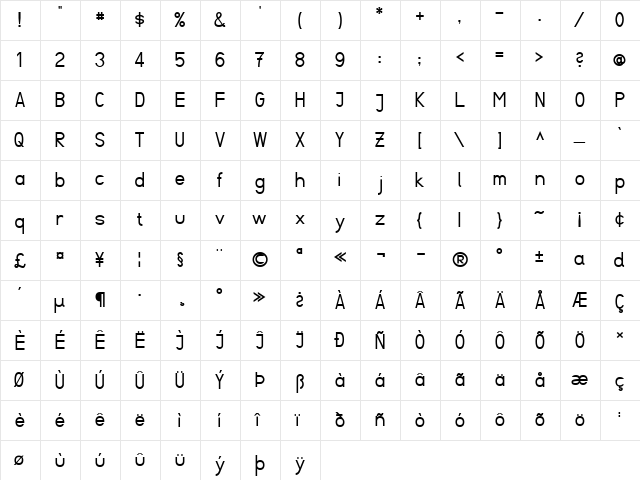
Fibel Sued Regular
| Foundry | Peter Wiegel |
| Designer | Peter Wiegel |
Design Context for Fibel Sued Typeface
Fibel Sued offers clean, dependable letterforms without strong stylistic allegiance, making it a practical choice for designers who need flexibility.